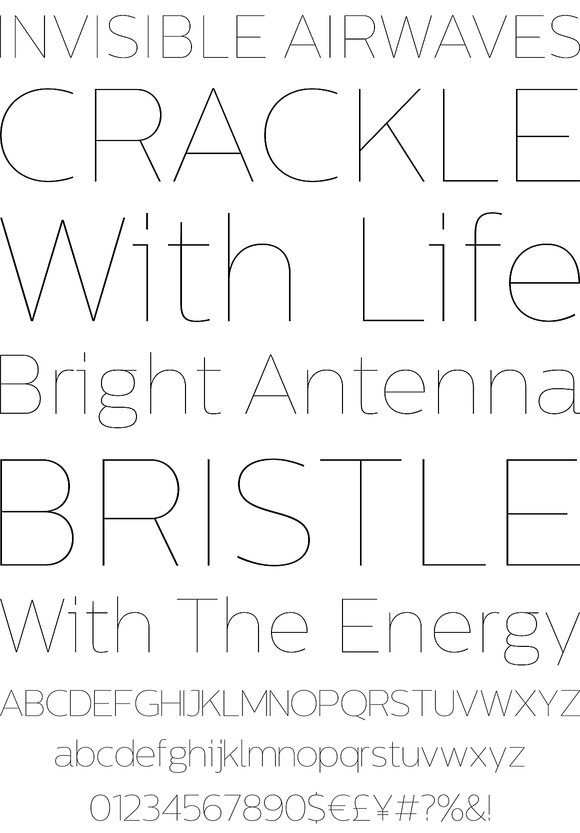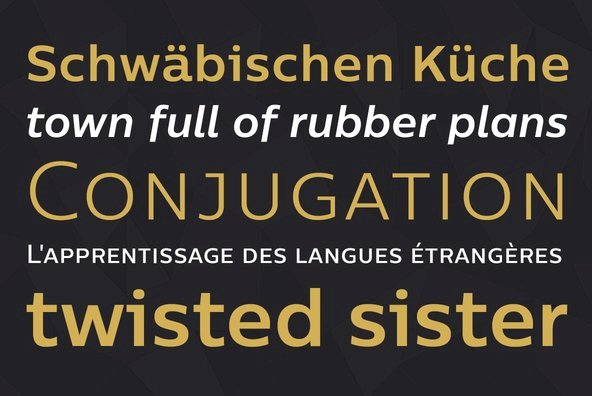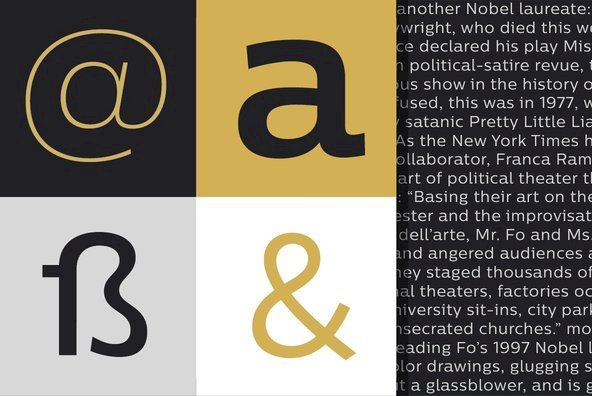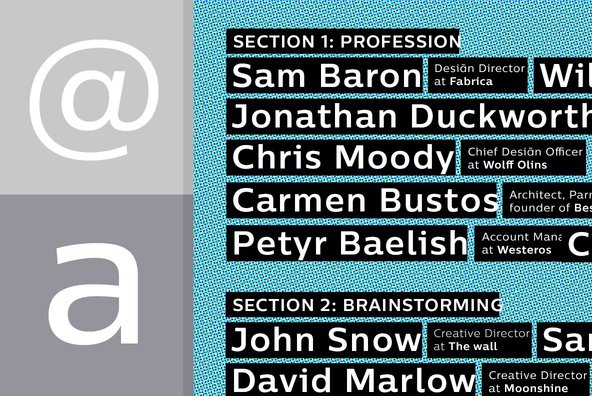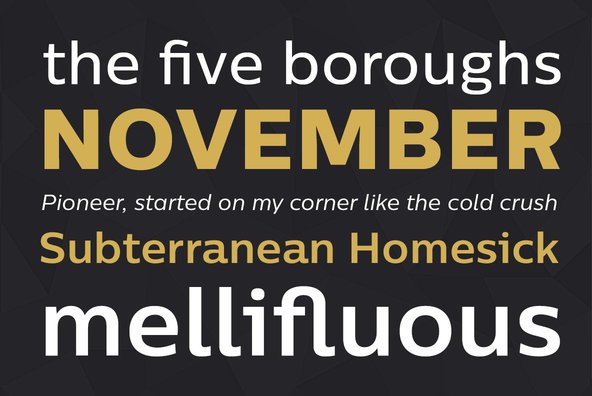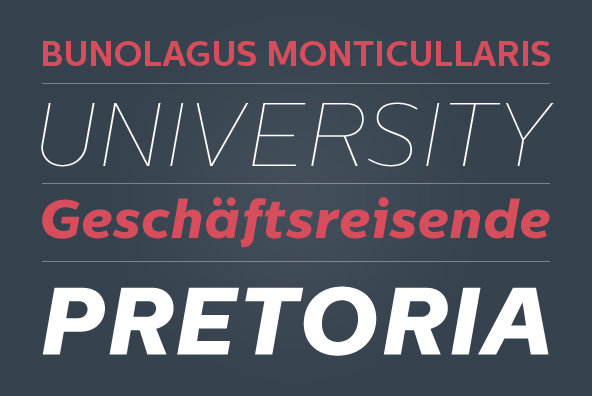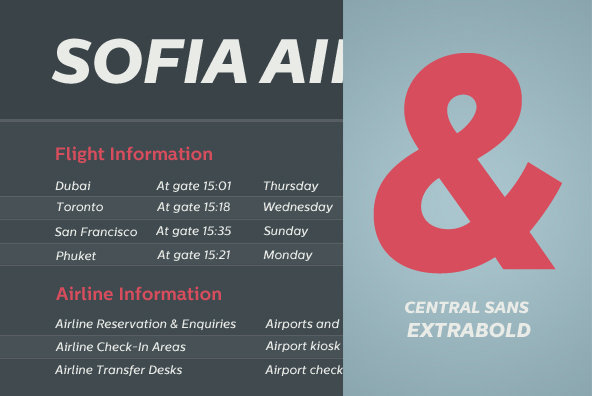
Centrale Sans
Centrale Sans is a modern sans-serif typeface combining the geometric and the humanist models. It's serious but friendly as well, ranging from Hairline to Extra Bold plus their matching italics it is a great addition to your type library. It is characterised with large x-height and quite large apertures which makes it quite readable on screen use.
Although it's not completely new release, it is with redesigned italics which we decided to draw from scratch, a lot of contrast issues are fixed, as well as a numerous little tweaks and fixes. We've added those two new weights - Hairline and Extra Bold to make it even more versatile.
In addition to all those changes we've designed Centrale Sans Condensed in order to make the Centrale Sans Family the workhorse you need.